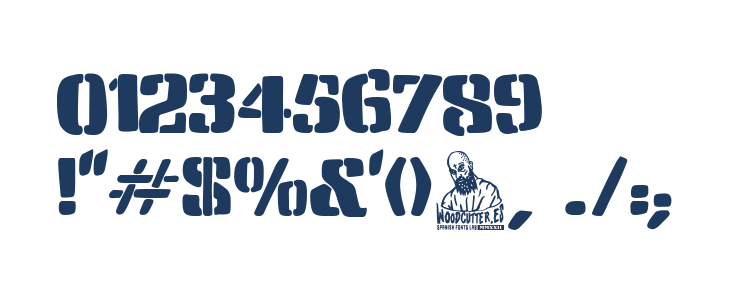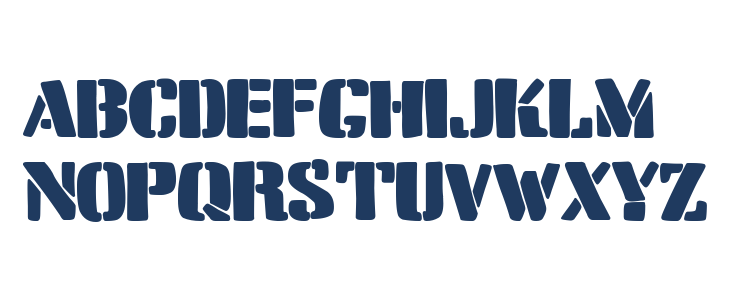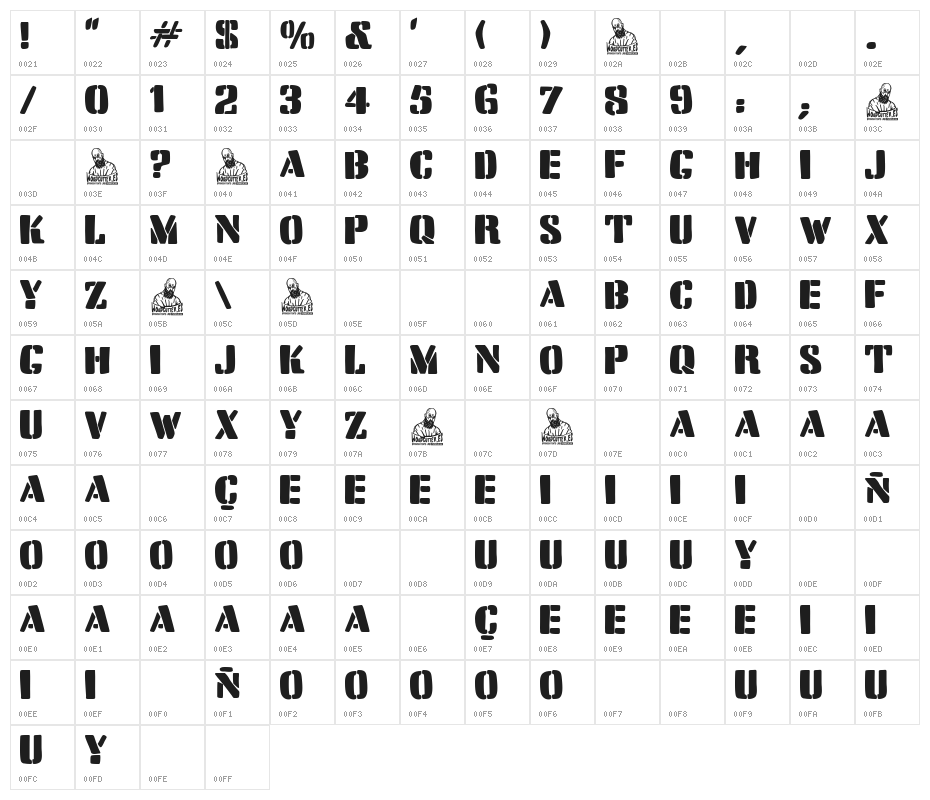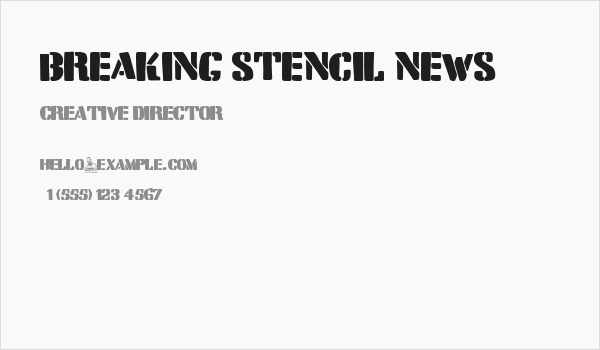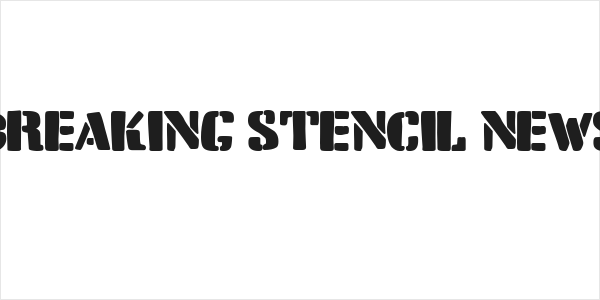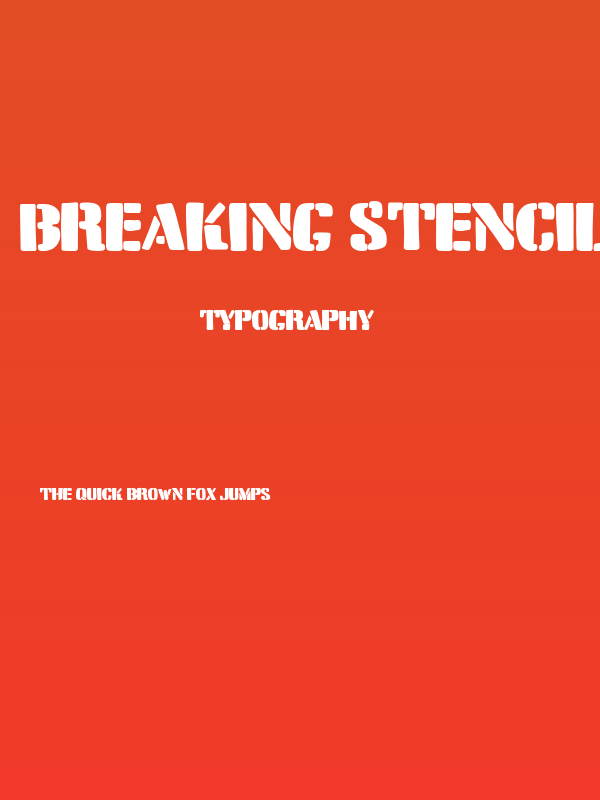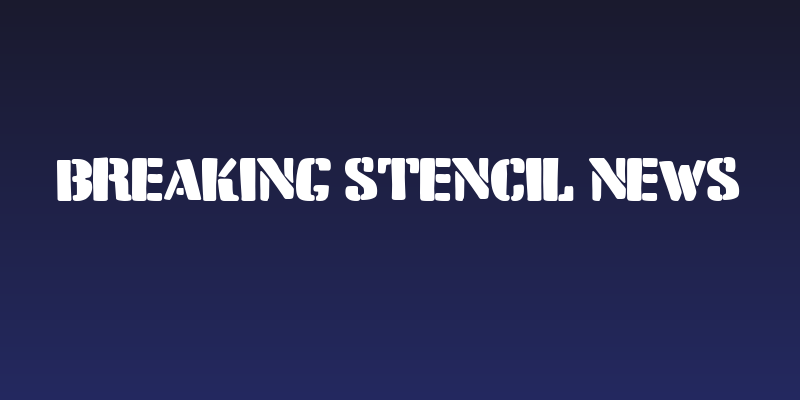
Breaking Stencil News Font
Breaking Stencil News Description
A bold, stencil-style display font with geometric letterforms and distinct breaks in the strokes, evoking an industrial and utilitarian aesthetic. The characters are wide and have consistent stroke thickness, with clear separation lines typical of stencil designs.
| Overall Style | Industrial, Modern, Decorative |
| Use Case | Headlines, Posters, Signage, Logos |
| Proposed Projects | Posters, military-themed graphics, packaging, signage, branding for industrial or urban projects. |